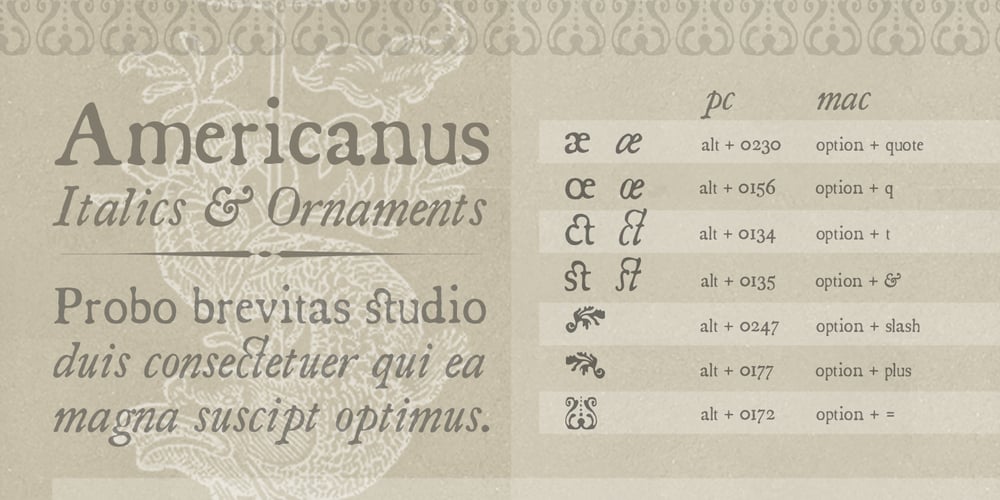
Americanus
Americanus font
Americanus Font Family was designed by Stephen Miggas and published by Aerotype. Americanus contains 5 styles and family package options. Typical of early 1800s newsprint type, Americanus and Americanus Italics have three historically accurate ornaments and discretionary OpenType features for commonly used ligatures like ct and st. The Americanus Ornaments package contains a wider selection of authentic antique ornaments and border elements and is included as part of the Americanus Family package.